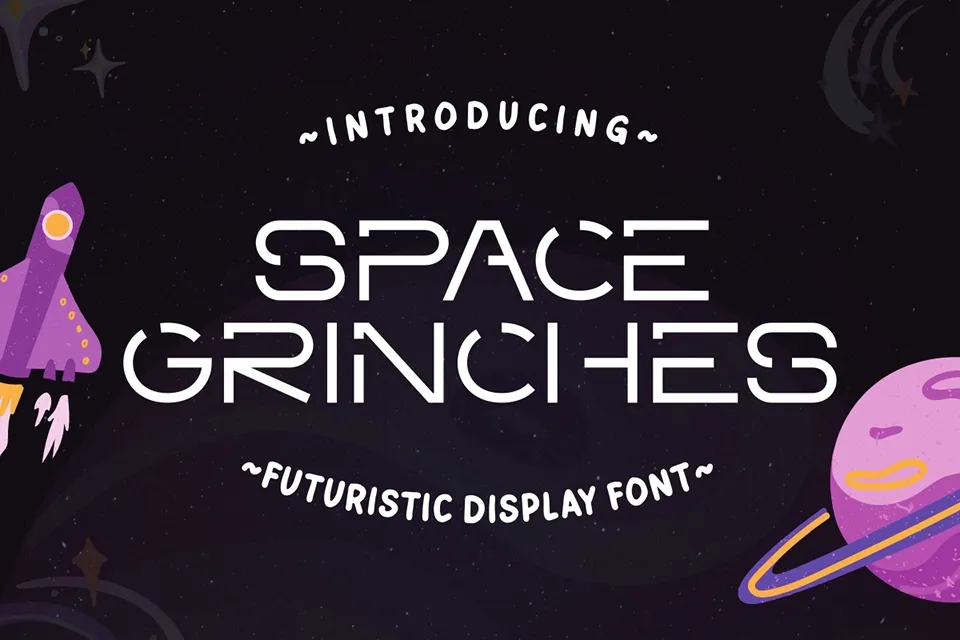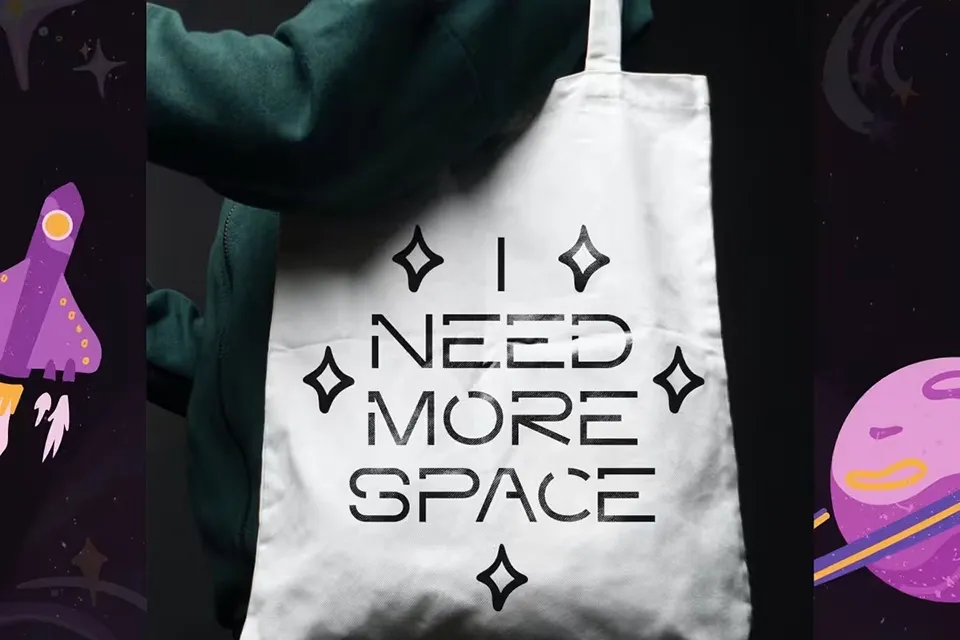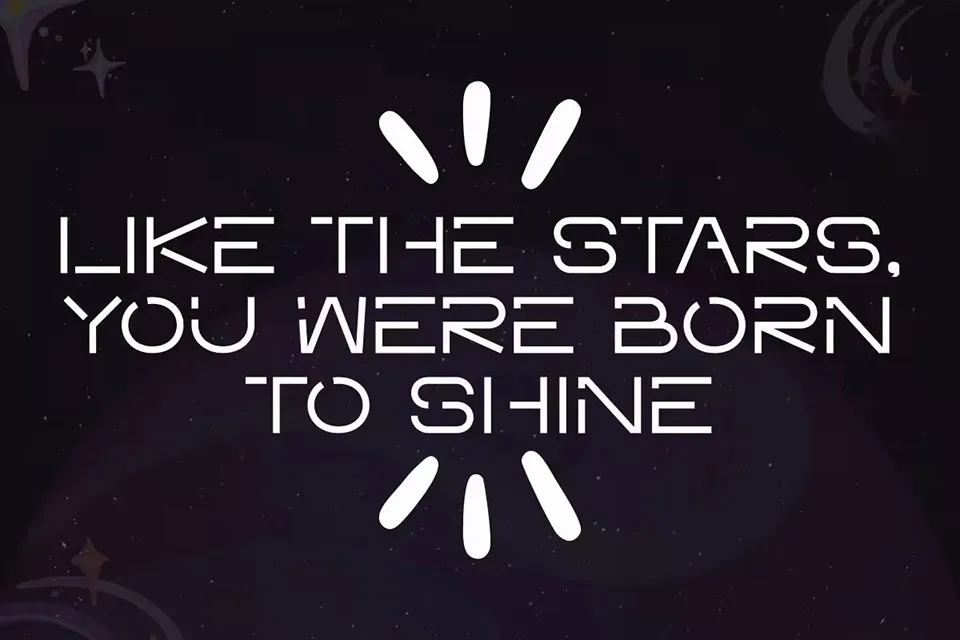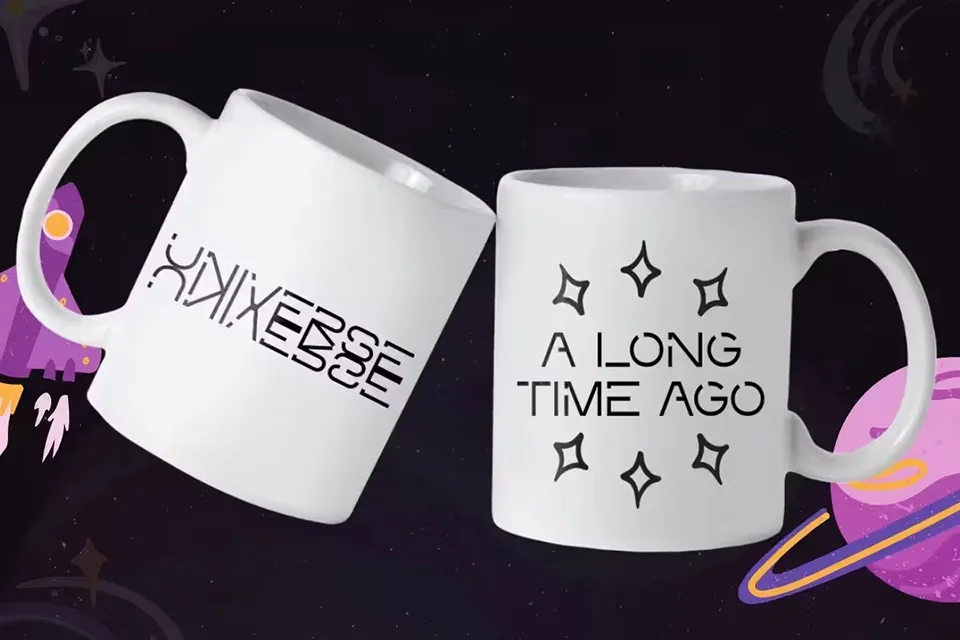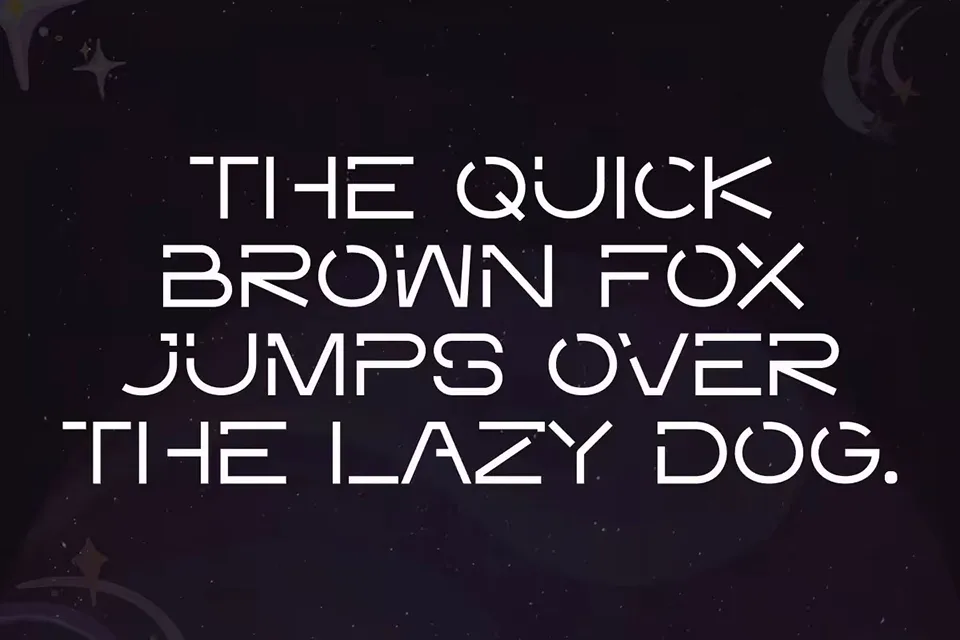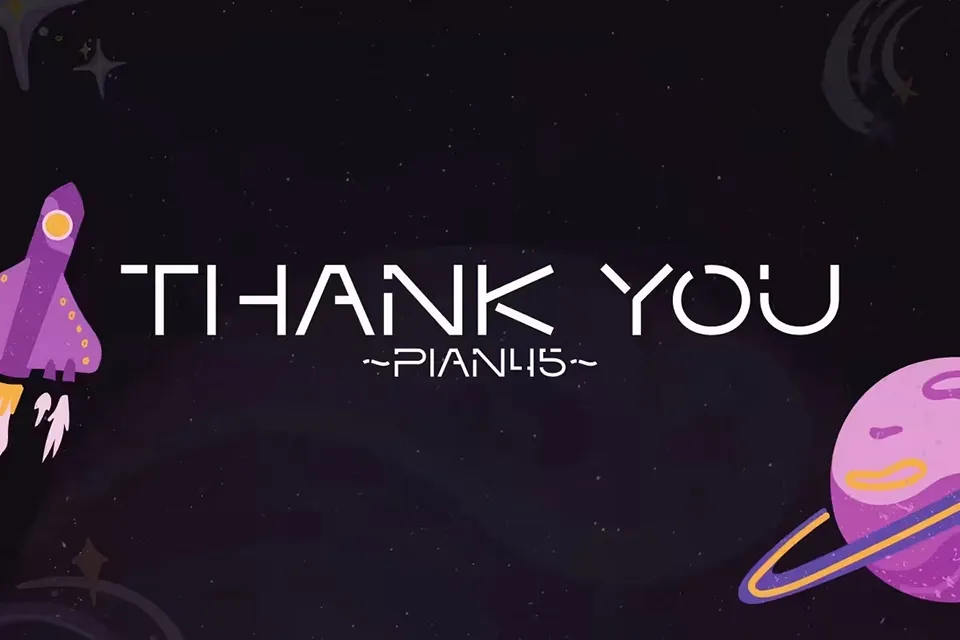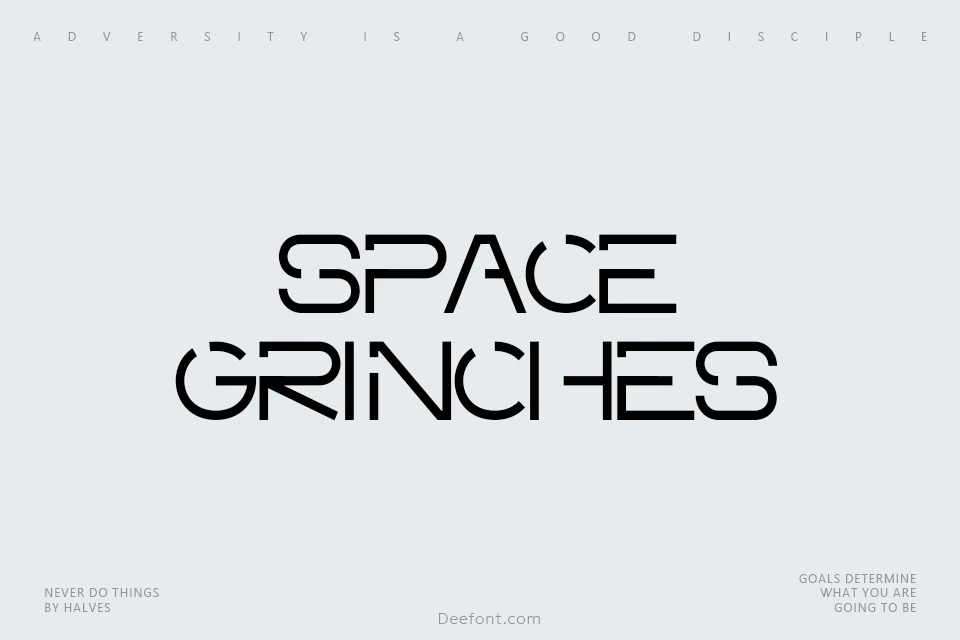
Space Grinches Font
Space Grinches Font is a futuristic display typeface that combines bold, geometric shapes with a sleek, modern aesthetic. Perfect for sci-fi themes, technology-focused designs, or creative branding, this font captures the essence of innovation and exploration. Its sharp lines and unique letterforms create a striking visual impact, making it ideal for posters, logos, headlines, and digital artwork. Space Grinches Font evokes a sense of adventure and mystery, transporting your designs into the vastness of space. Whether you’re working on futuristic concepts or bold creative projects, this font delivers a distinctive and captivating style that stands out in any context.